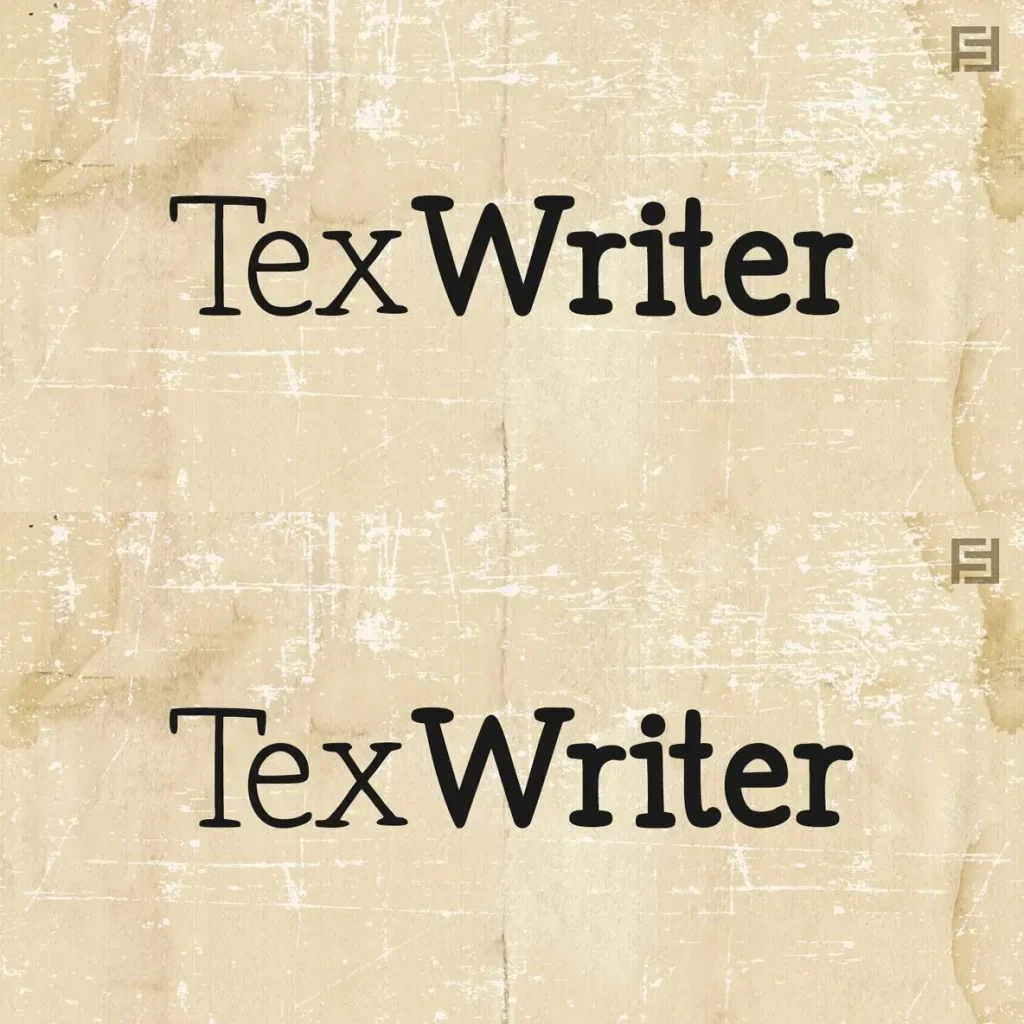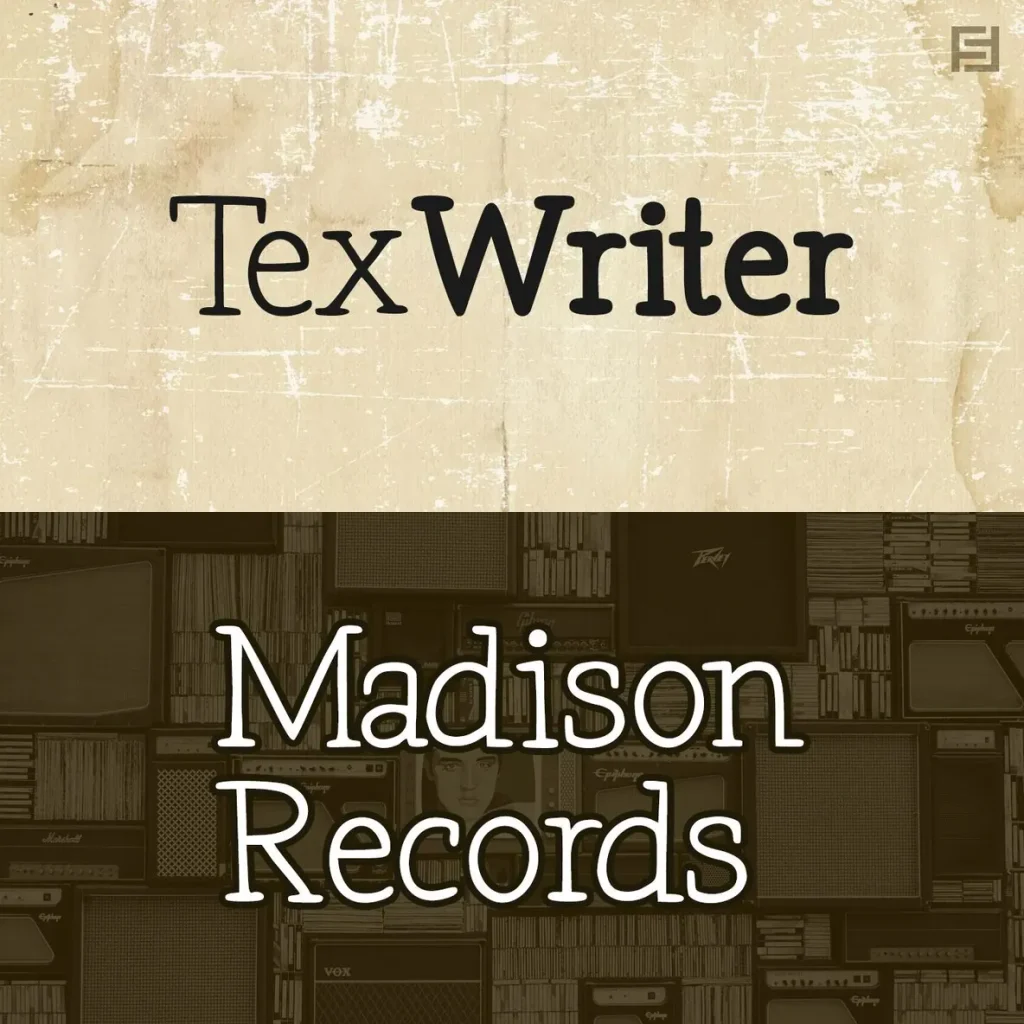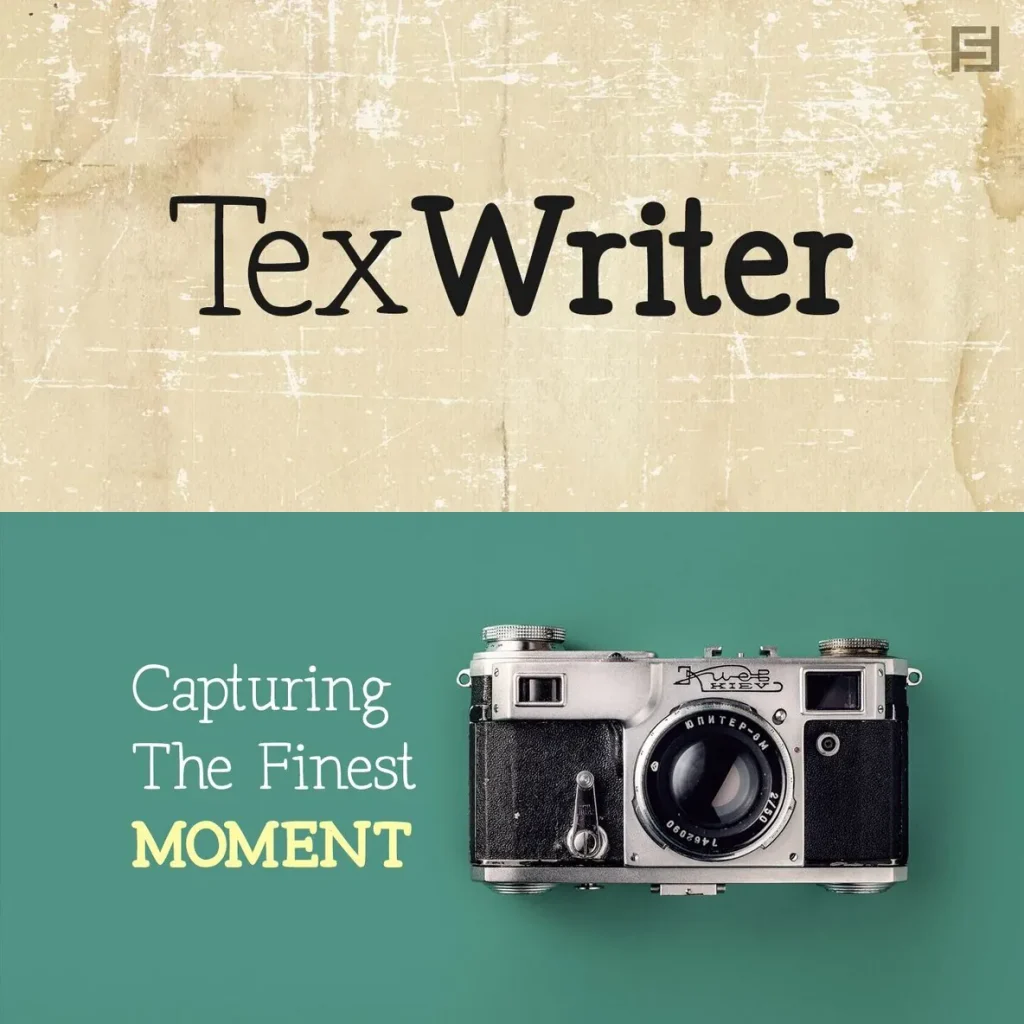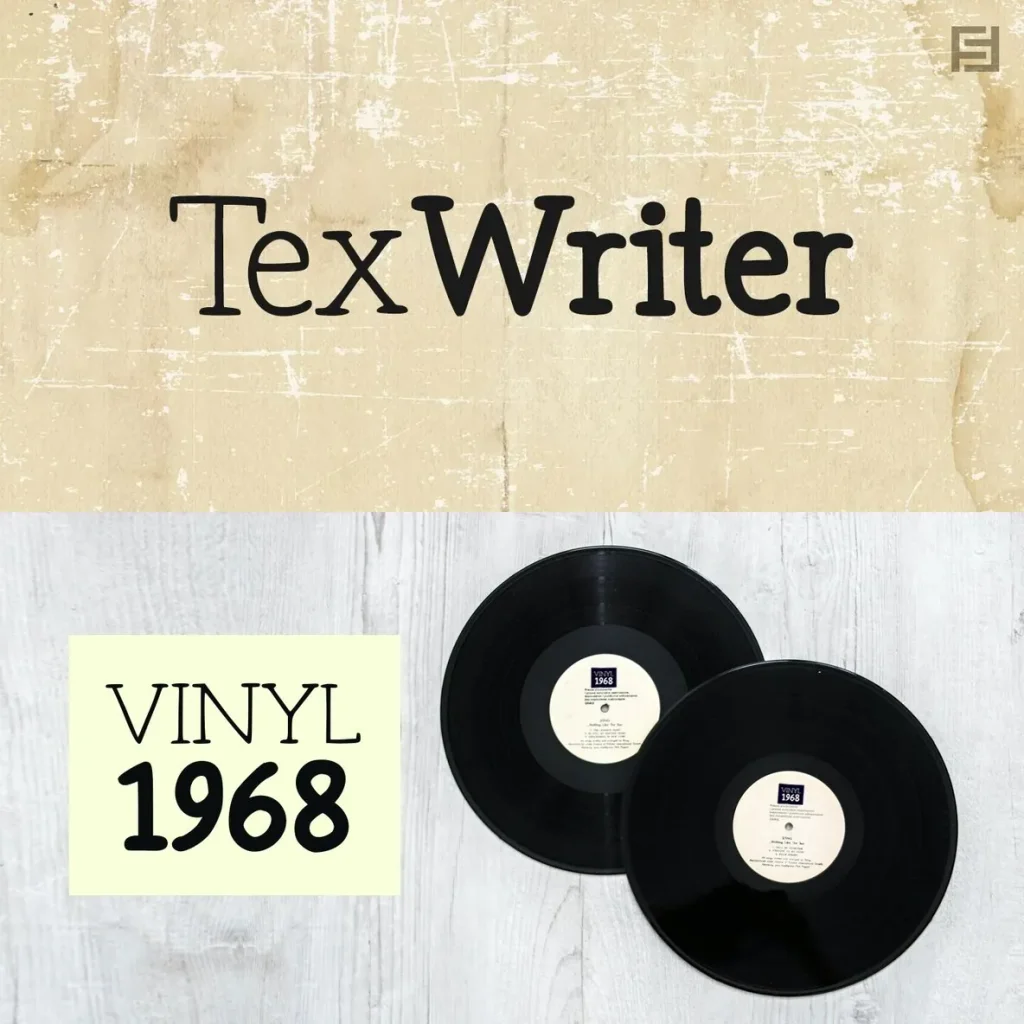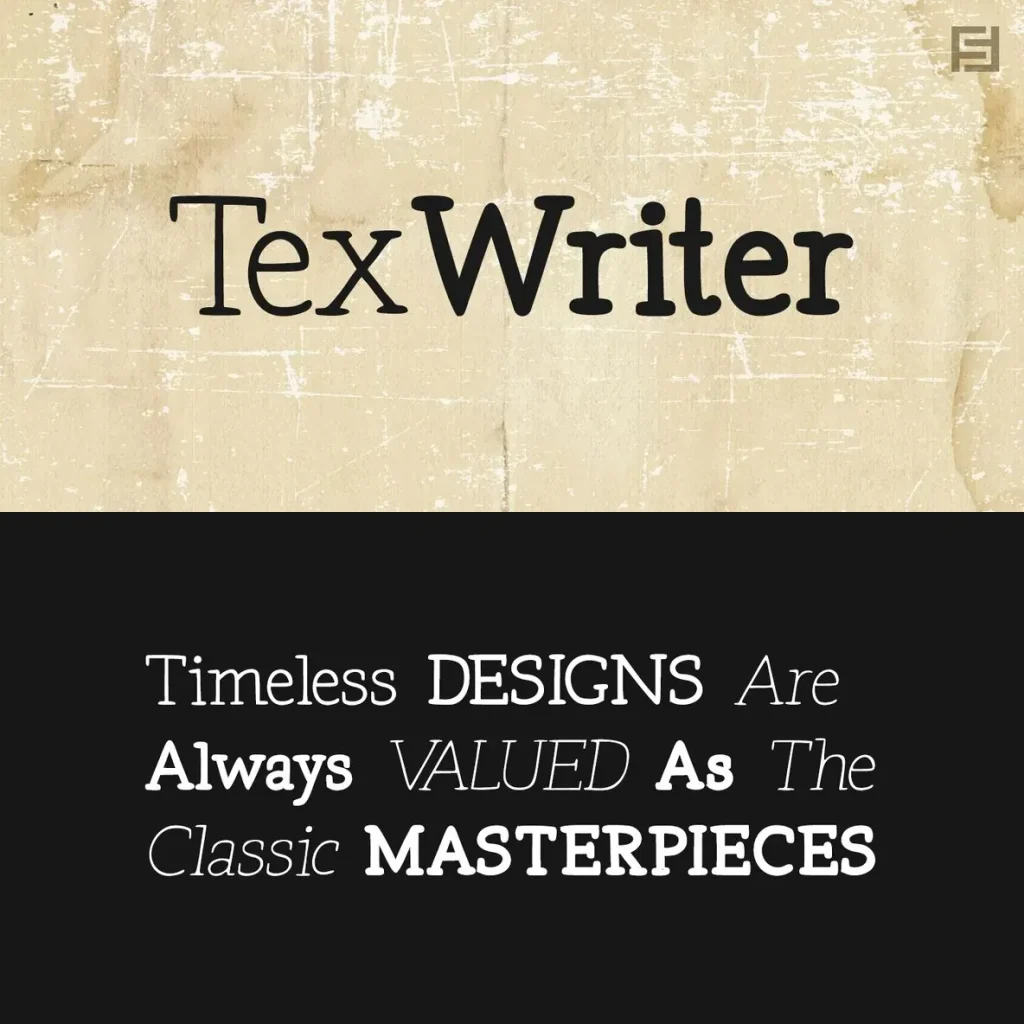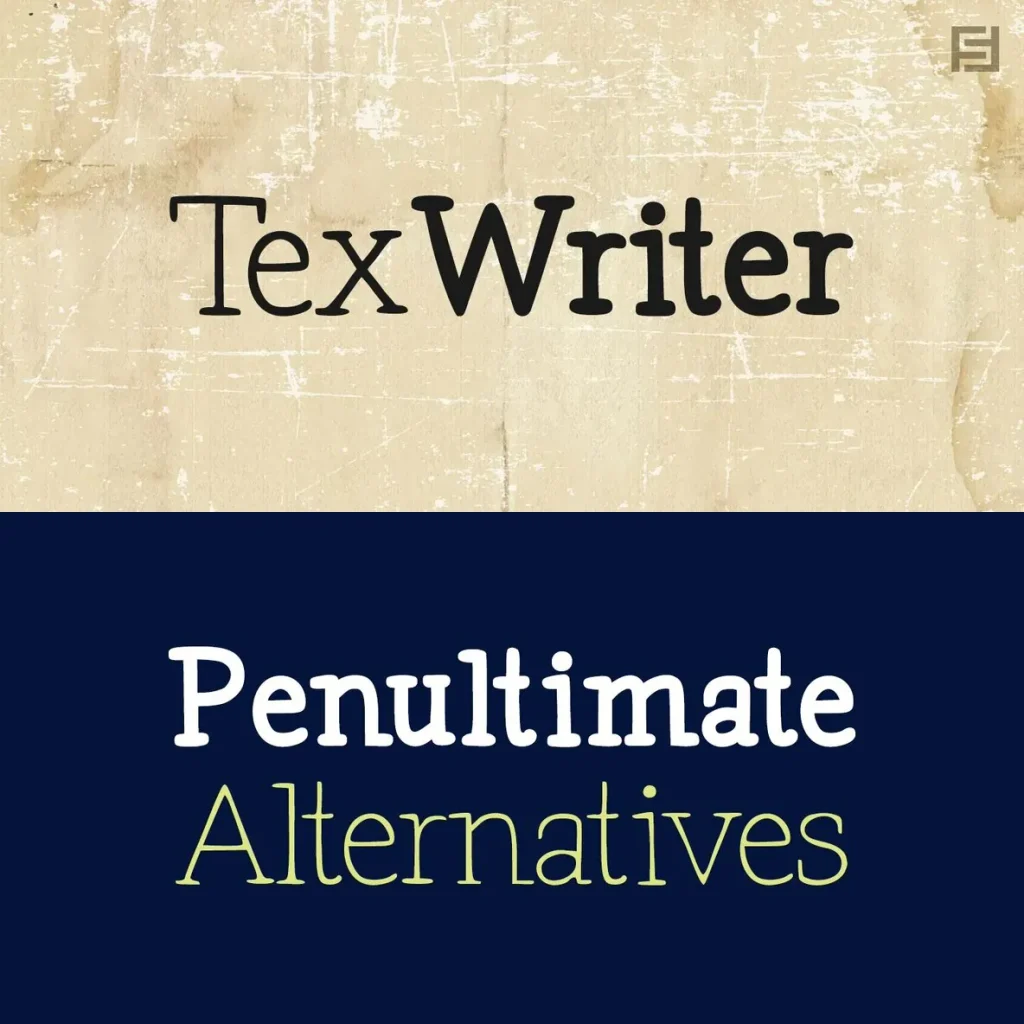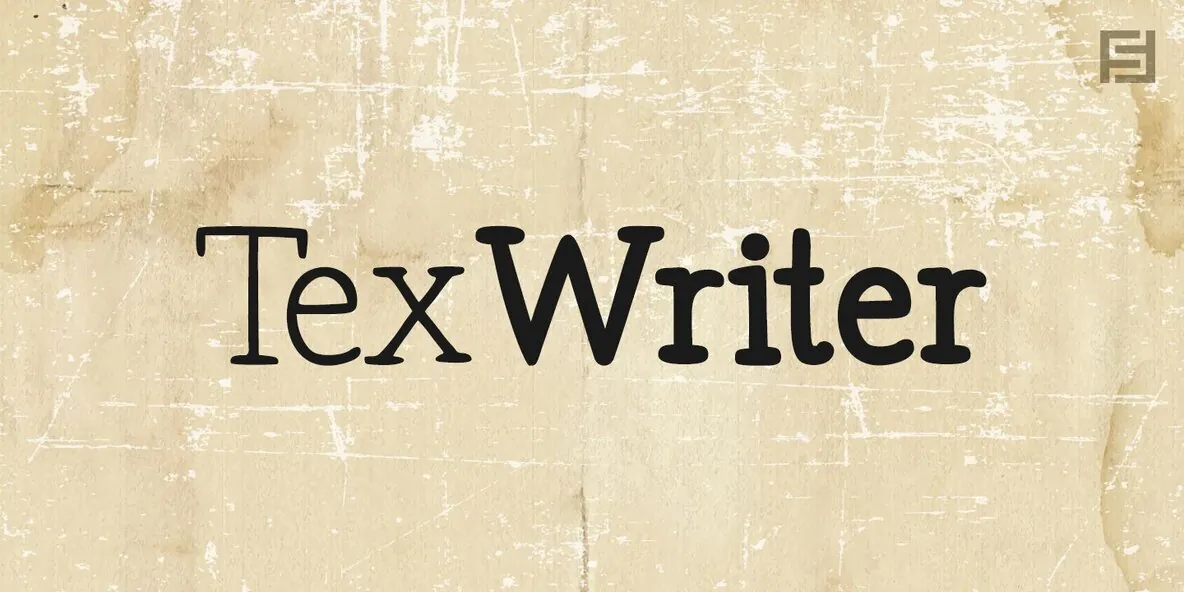
Tex Writer — Handmade Serif Warmth
Tex Writer is a handmade serif typeface with a natural, organic, and slightly imperfect character. Its forms draw from traditional printed letters and hand-created typography, giving the font a warm and authentic appearance without feeling overly polished.
Designed for work that calls for a handcrafted classic feel, Tex Writer brings a human touch to text and display settings. It suits projects where serif typography should feel personal, tactile, and rooted in print tradition.
Suitable For
Books
Editorial designs
Branding
Packaging
Labels
Posters
Projects that need a handcrafted classic feel